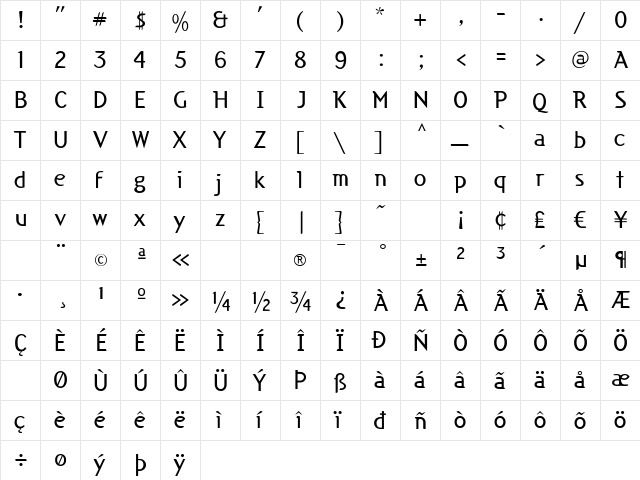
Cuban Light
Design Context for Cuban Typeface
Cuban offers clean, dependable letterforms without strong stylistic allegiance, making it a practical choice for designers who need flexibility. The delicate stroke weight brings airiness and refinement to layouts.
Pro Tip: Pair Cuban with a font of contrasting weight or personality to build a more expressive typographic hierarchy.